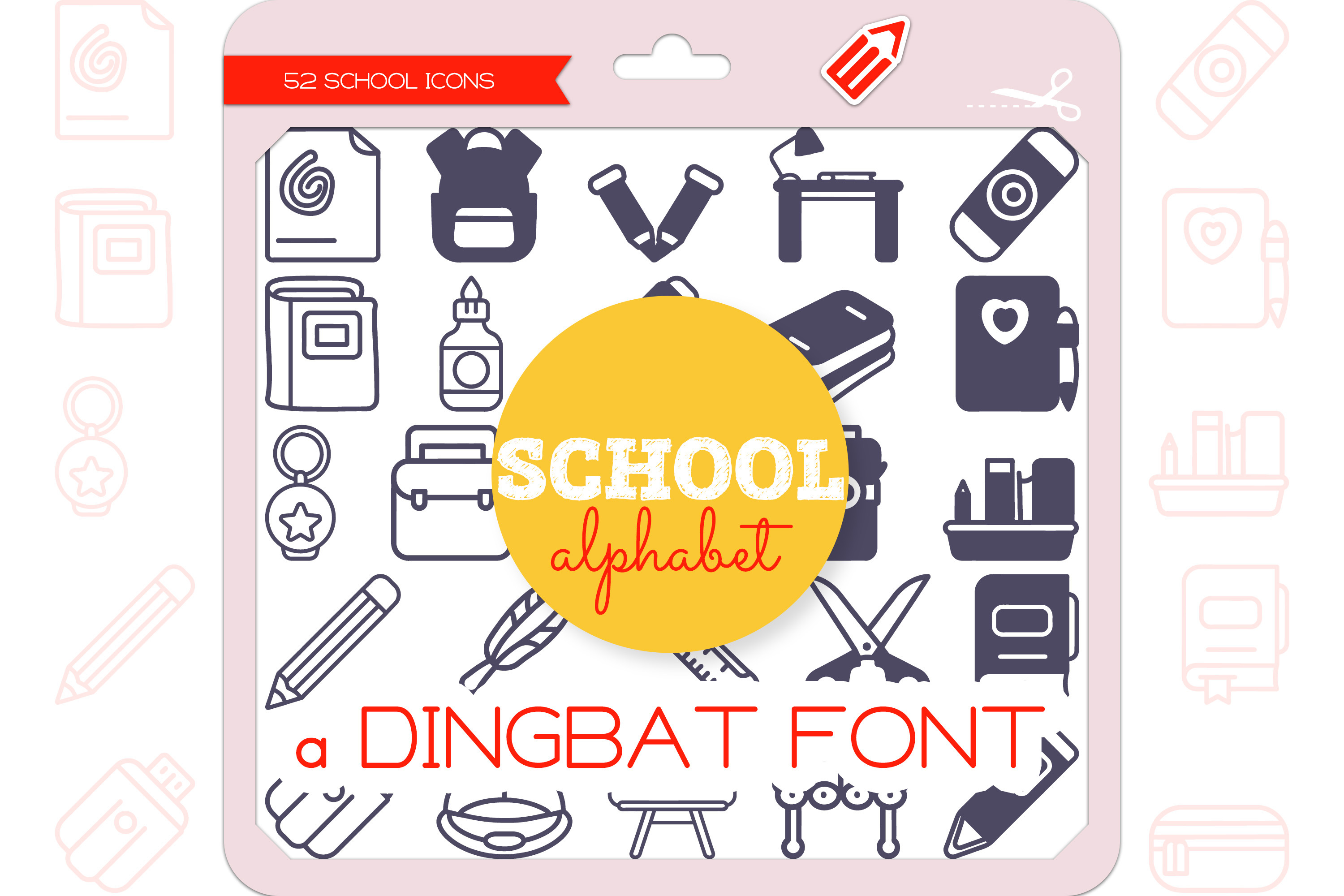
School Alphabet - Dingbat Font
School Alphabet is a unique and cute dingbat font, each School icon representing each letter of the alphabet from A to Z. It contains 52 icons in 2 styles (Outline & Filled-Outline). Add this font to your creative ideas and make your arts outstanding!
The School Alphabet Icons Dingbat Font featuring 26 A-Z things Art Paper, Backpack, Crayons, Desk, Eraser, Folder, Glue, Highlighter, Index Cards, Journal, Keychain, Lunchbox, Marker, Notebook, Office Supplies, Pencil, Quill, Ruler, Scissors, Textbook, Usb Drive, Visor, Whiteboard, Xylophone, Yellow Highlighter, Zipper Pouch